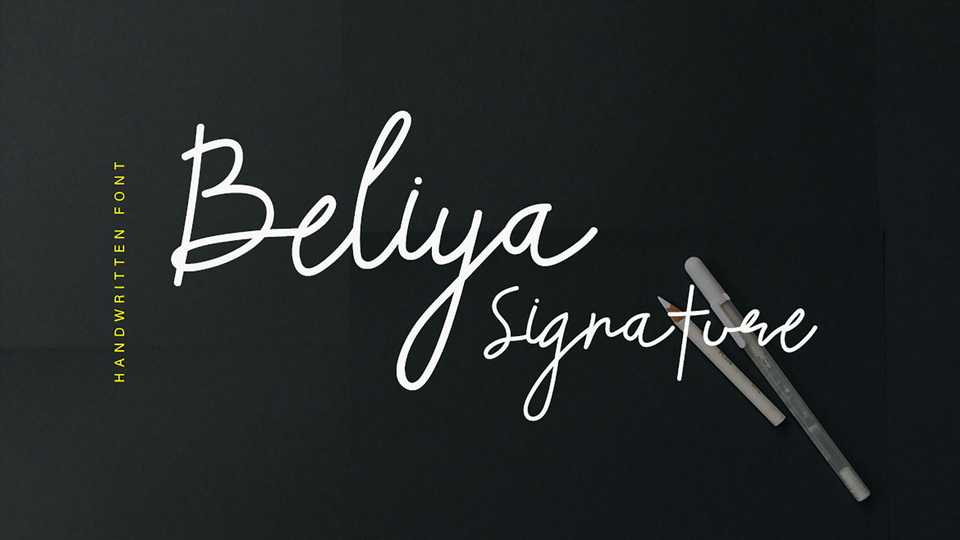
Download Beliya font, a casual script typeface like a pen ink brush that is both strong and flexible. Beliya font is suitable for logos, social media, ads, photography watermark, quotes, notes and so much more.